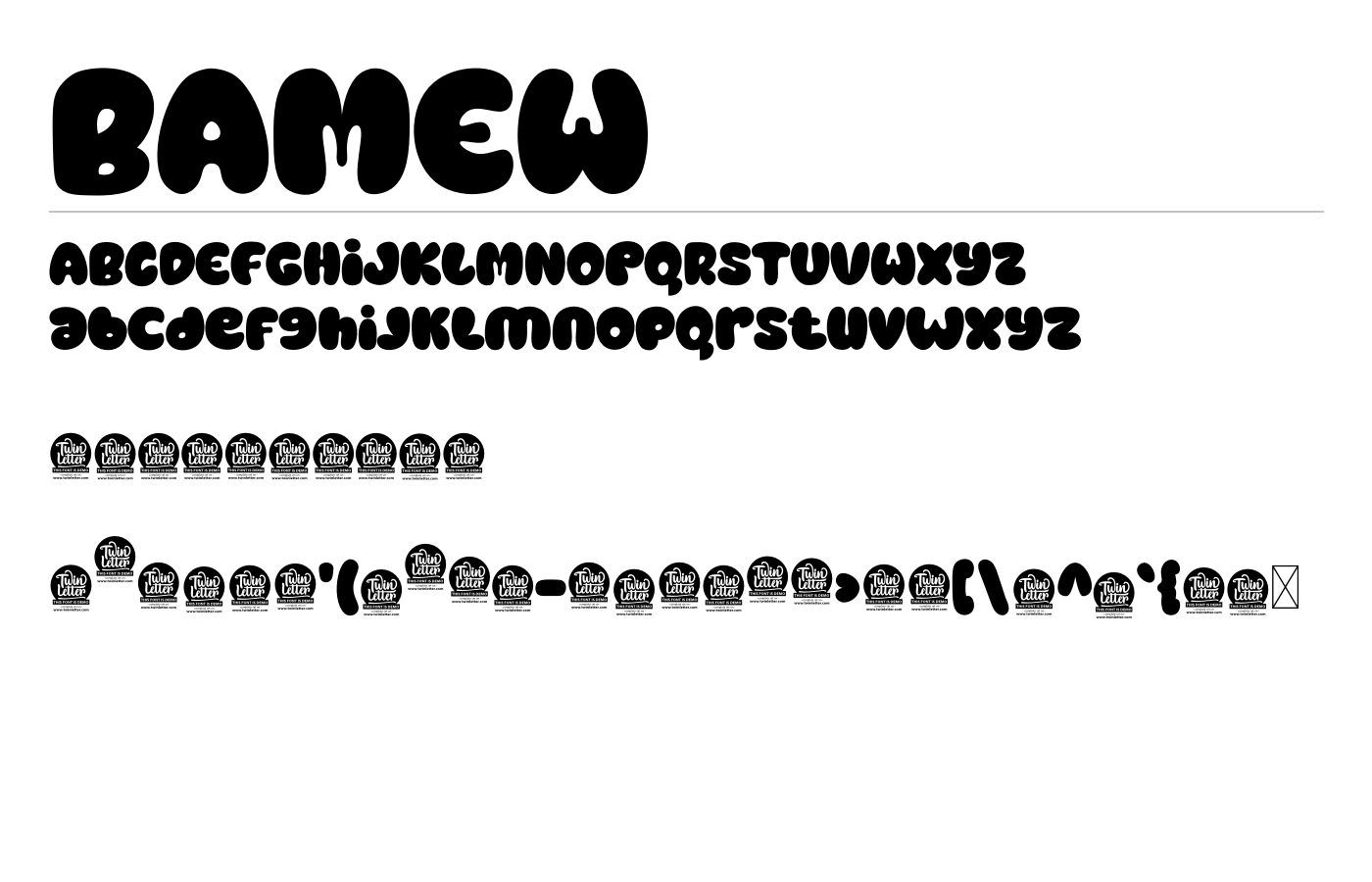
BAMEW is a bold, rounded sans-serif font with a playful and friendly personality. Its thick strokes and soft, bubble-like letterforms create a fun and approachable vibe, making it ideal for children’s books, casual branding, and eye-catching headlines. This font works well when you want to add a cheerful and informal touch to your designs.
BAMEW Font
About BAMEW Font